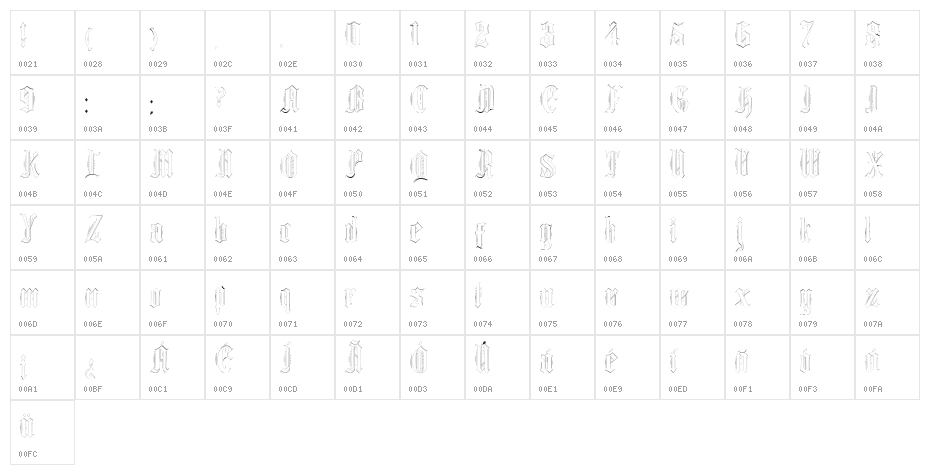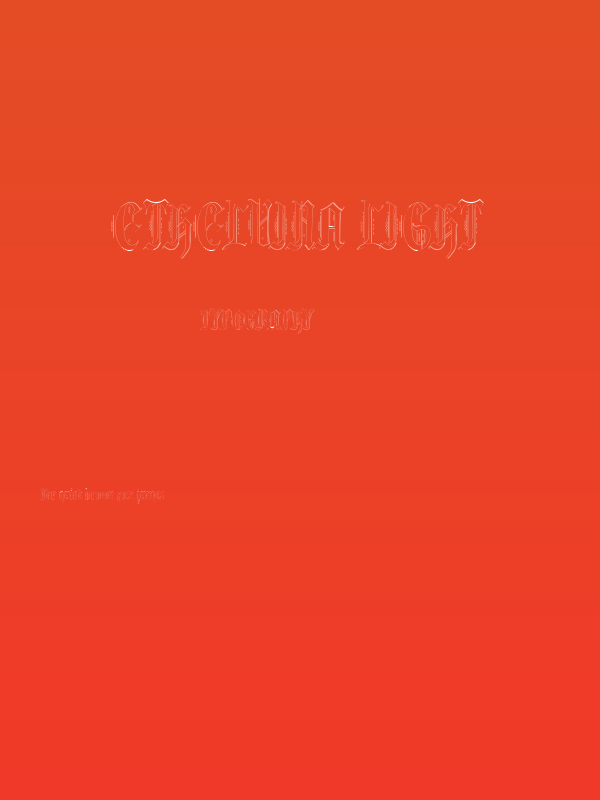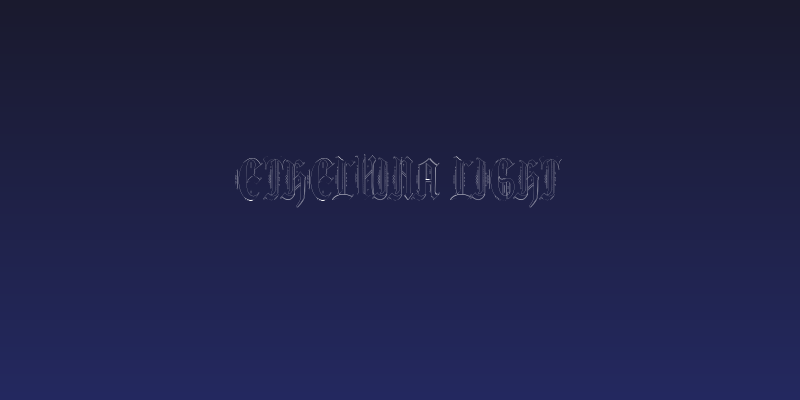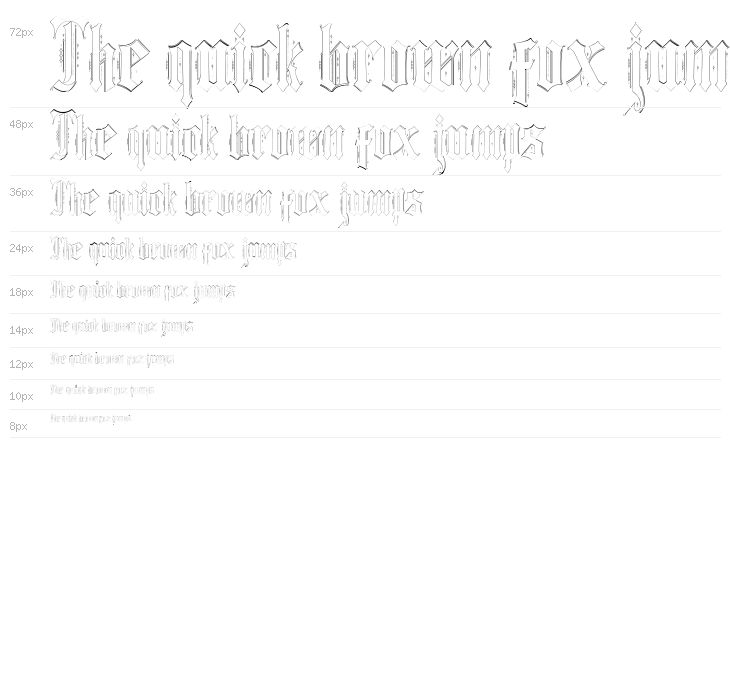
Ethelvina_Light Font
Ethelvina_Light Description
This font embodies a classic blackletter style with intricate detailing and sharp, angular forms. The uppercase letters are bold and commanding, featuring elaborate serifs and decorative flourishes that give a sense of historical elegance. The lowercase characters maintain the same intricate design, offering a cohesive look throughout the alphabet. Numbers and special characters are equally ornate, ensuring a consistent aesthetic. The overall appearance is reminiscent of medieval manuscripts, making it ideal for projects that require a touch of vintage sophistication.
| Proposed Projects | Ideal for historical-themed designs, book covers, certificates, and branding that requires a vintage or gothic touch. |